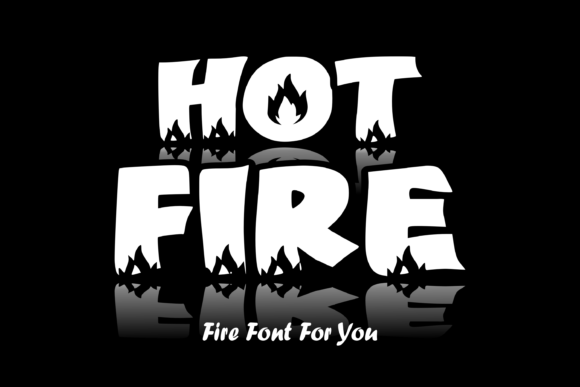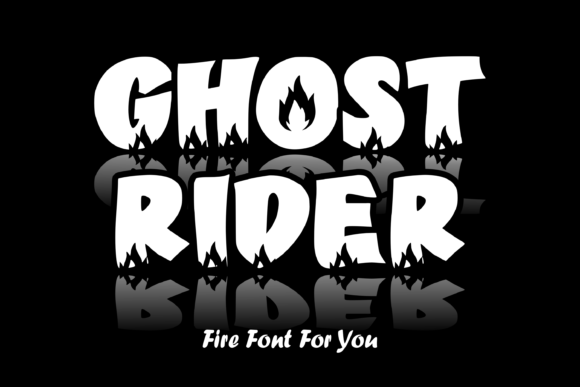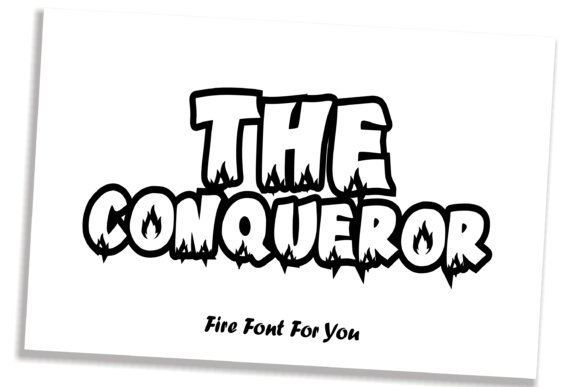
Hot Fire Font
About the Hot Fire Font
The Hot Fire Font is here to transform your projects with its distinctive character and style. Unleash the flame of creativity with Hot Fire, an exceptionally unique font! Skillfully crafted to become a favorite amongst creatives, Hot Fire holds the power to ignite your thoughts and boost your designs to unparalleled heights. It’s the spark you need for your every creative pursuit.
Hot Fire’s bold, energetic personality makes it ideal for headlines, short impactful statements, logos, and posters where a strong visual presence is desired. It excels in branding for companies emphasizing strength, innovation, or a rebellious spirit. However, its high contrast and unique forms make it less suitable for body text or UI elements requiring high readability.
Consider pairing Hot Fire with a clean sans-serif like Montserrat for a modern contrast, or a classic serif such as Garamond for a sophisticated juxtaposition of styles. For a more playful feel, a rounded sans-serif like Bebas Neue could work well. Avoid pairing it with other highly stylized or decorative fonts to prevent visual clutter.
The font’s overall mood is confident and dynamic, conveying a sense of power and excitement. This makes it an excellent choice for projects needing a punchy and memorable visual identity.